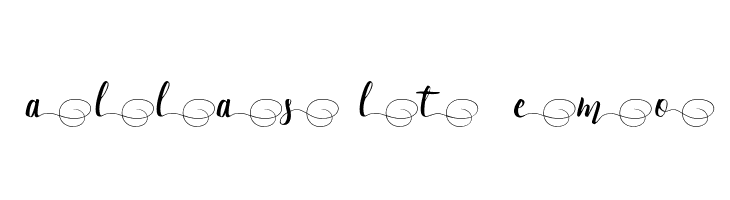
An ornate and decorative font with high contrast and elaborate details.
An elegant script font with flowing, interconnected letterforms and elaborate swashes.
An ornate and decorative font with elaborate swirls and flourishes.
An intricate, decorative script font with flowing, interconnected letters and elaborate swashes.
An ornate and decorative font with elaborate swirls and flourishes.
A graceful calligraphic script with elaborate swashes and flowing lines.
A playful and whimsical font with elaborate curls and loops.
An ornate and decorative script font with elaborate swirls and flourishes.
An elegant, decorative script font with flowing, interconnected letters and elaborate swashes.